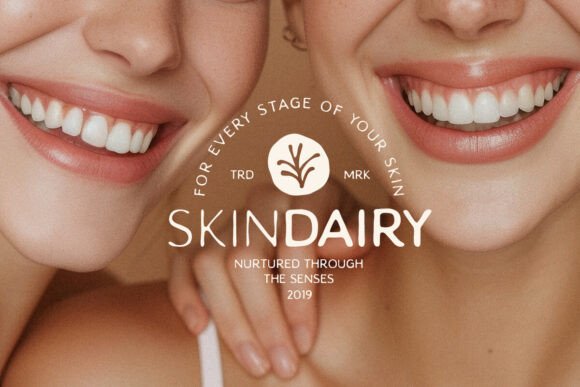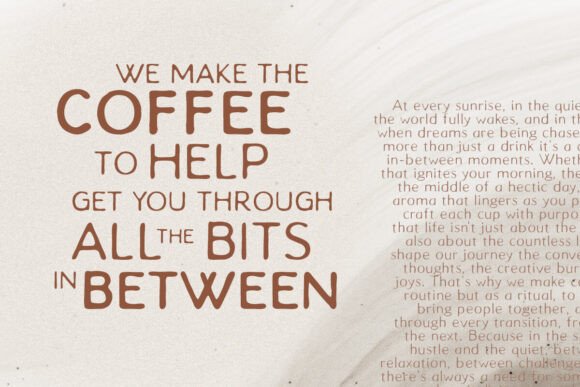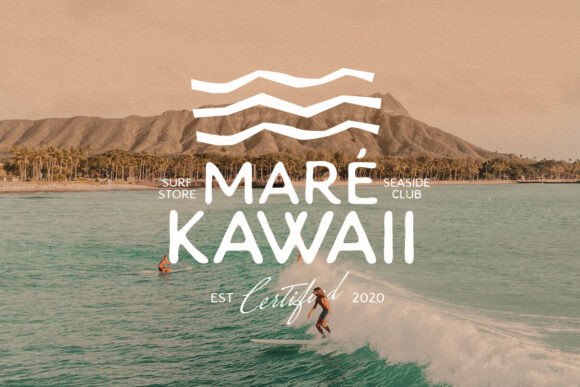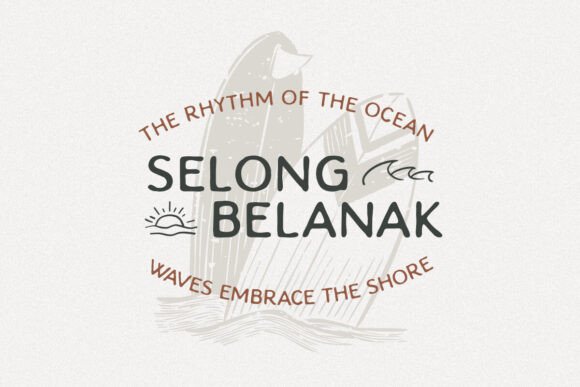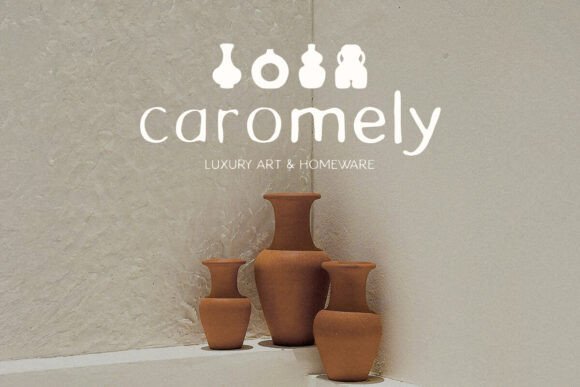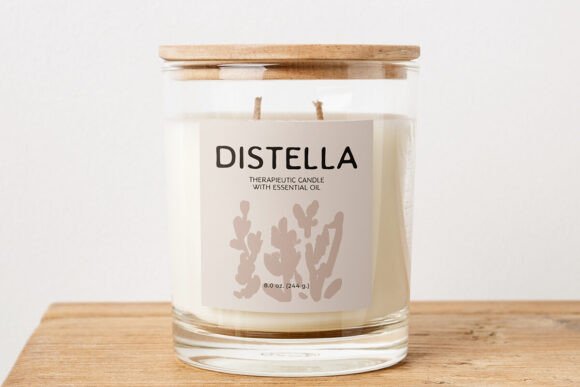
Discover the Charm of Granmile Font: A Handwritten Sans for Natural and Organic Designs
In the world of typography, fonts play a crucial role in conveying the tone and personality of a brand, product, or message. For designers and crafters seeking a font that exudes a natural and organic feel, Granmile Font is an excellent choice. This handwritten sans font is available in light, regular, and bold styles, making it versatile for various design applications.
What is Granmile Font?
Granmile Font is a carefully crafted handwritten sans font that boasts a unique, organic charm. Its light, regular, and bold styles cater to different design needs, allowing users to add a touch of personality to their creations. Whether you’re working on branding, logos, quotes, or designs that require a natural and earthy look, Granmile Font is an ideal selection.
Key Features of Granmile Font
- Handwritten Sans Style: Granmile Font features a beautiful, handwritten sans style that adds a personal touch to any design.
- Multiple Weights: The font comes in light, regular, and bold styles, providing flexibility for various design applications.
- Natural and Organic Look: Granmile Font is perfect for designs that require a natural and earthy feel, making it suitable for branding, packaging, and more.
- Multi-Language Support: This font supports multiple languages, making it a great choice for global brands and designers working with diverse clients.
Use Cases for Granmile Font
Granmile Font’s versatility makes it suitable for a wide range of design projects. Here are some use cases:
- Branding and Logos: Create a unique and memorable brand identity with Granmile Font’s distinctive style.
- Quotes and Typography: Add a touch of personality to quotes, posters, and typographic designs with Granmile Font’s handwritten charm.
- Packaging Design: Use Granmile Font to create eye-catching packaging designs that stand out on store shelves.
- Digital and Print Materials: Apply Granmile Font to digital and print materials, such as brochures, flyers, and social media graphics, to add a natural and organic feel.
Why Choose Granmile Font?
With numerous fonts available, why should you choose Granmile Font for your design projects? Here are some compelling reasons:
- Unique Style: Granmile Font offers a distinctive handwritten sans style that sets it apart from other fonts.
- Flexibility: The font’s multiple weights and multi-language support make it a versatile choice for various design applications.
- Ease of Use: Granmile Font is easy to read and works well in both digital and print formats.
Granmile Font is a beautiful, handwritten sans font that brings a natural and organic feel to designs. With its light, regular, and bold styles, multi-language support, and versatility, it’s an excellent choice for designers and crafters seeking a unique and memorable font. Whether you’re working on branding, logos, quotes, or packaging designs, Granmile Font is sure to elevate your creations and leave a lasting impression.